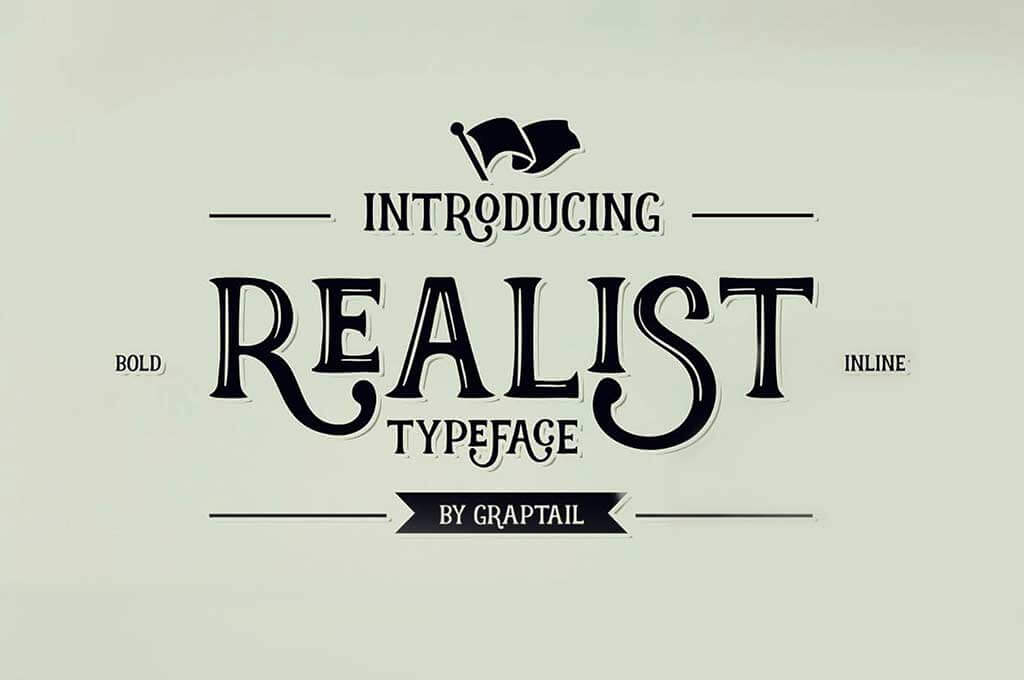
Famous Best Western Fonts References
Famous Best Western Fonts References. Give a nod to the cowboys (or cowgirls!) and bandits of the wild west with these bold. Now, you don’t have to use.
Best premium western fonts alamo a wild western font lettown hills display font cowboy western font esteban western font lansdowne decorative font western. This font has been inspired by western films, hence. In this article you will find the best western fonts:
Featuring 27 Layering Fonts, Sunday Best Comes In Two Different Styles:
Bleeding cowboys by segments design (aka last soundtrack) 6,329,772 downloads (366 yesterday) 132 comments free for personal use. Best western fonts in microsoft word the best cowboy fonts are old english text mt, rockwell extra bold, and baskerville old face. In this article you will find the best western fonts:
Brigand Is A Typeface That Is Bold, Strong And Imposing.
This typeface is perfect to use in designs. Rumble brave vintage fonts 2. Gunberg is a classic slab serif font that features an old western letter design.
Free The Vintage Slab This Typeface Is Created By Zone 6 And Comes With Everything You Want To Make.
Plain and fancy, each with three categories of layering abilities. The best western fonts are the font used in the logo. This font is great for giving a.
It is available for free for personal purposes but you need to contact the designer for commercial purposes. I used deadwood to render one of my favorite quotes from that movie. Stay bad to the bone with these free western fonts for projects, logos, blogs, graphic design and more.
Best Premium Western Fonts Alamo A Wild Western Font Lettown Hills Display Font Cowboy Western Font Esteban Western Font Lansdowne Decorative Font Western.
There are some great choices already. Blink kiss is one of western fonts that you will definitely enjoy. Give a nod to the cowboys (or cowgirls!) and bandits of the wild west with these bold.